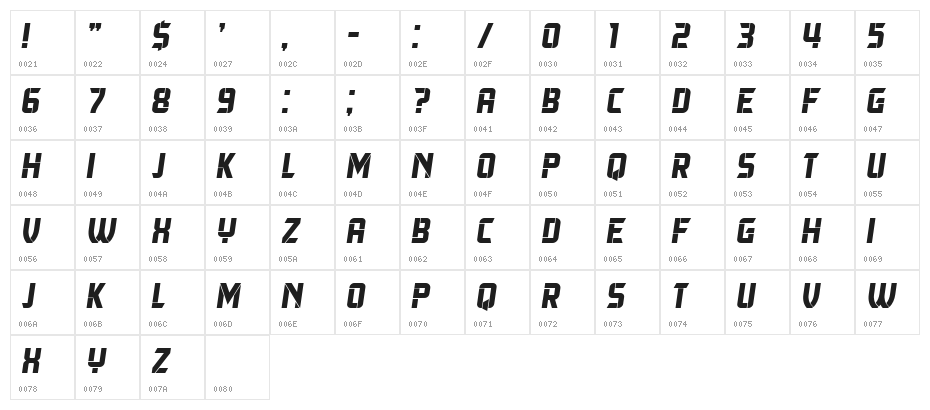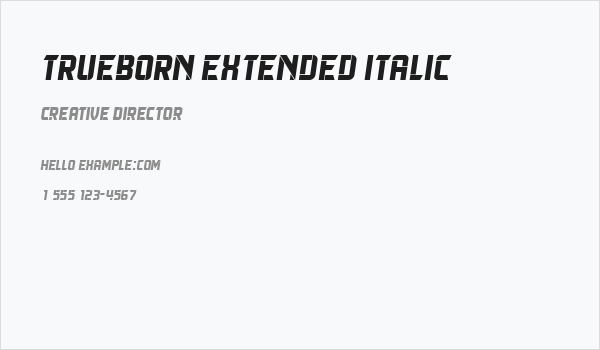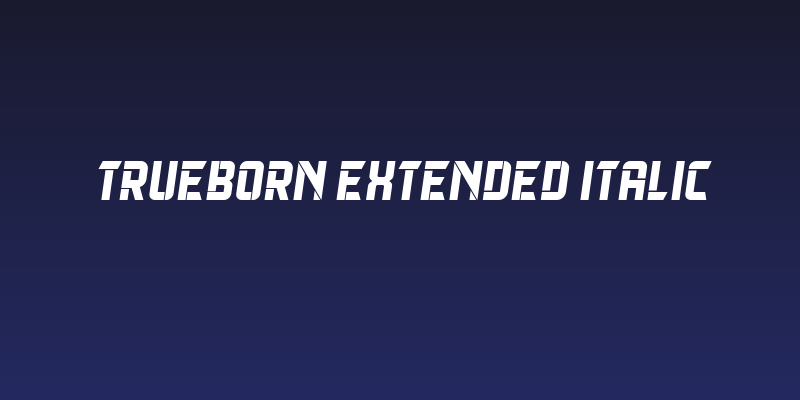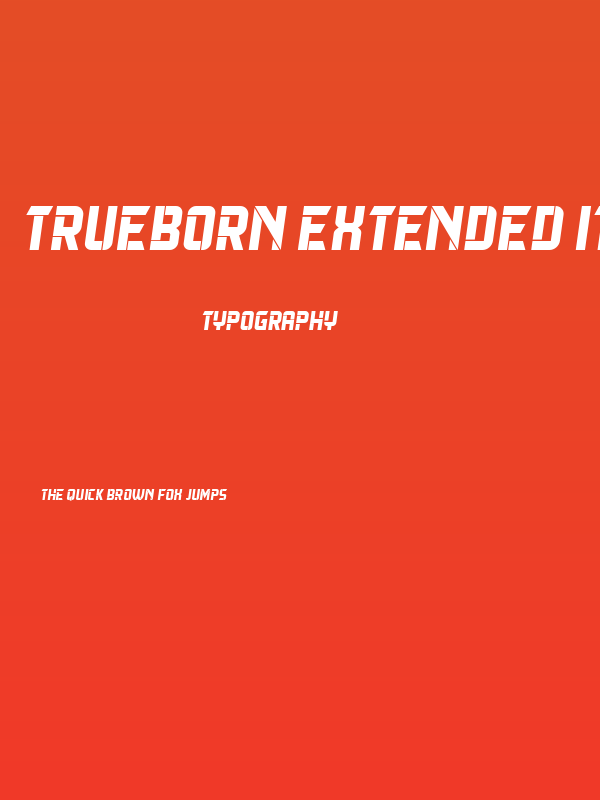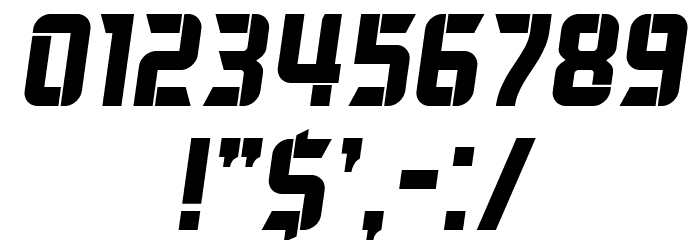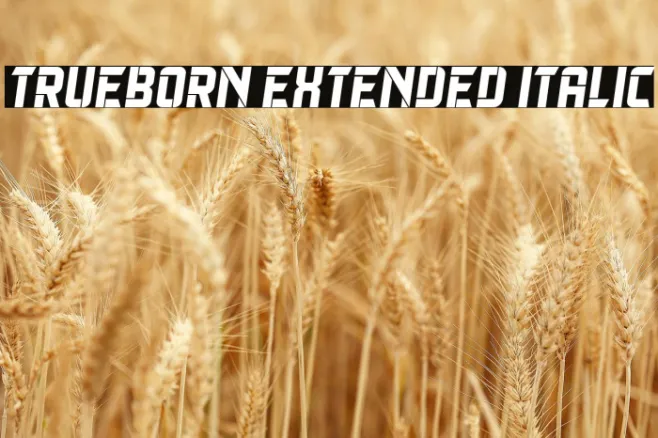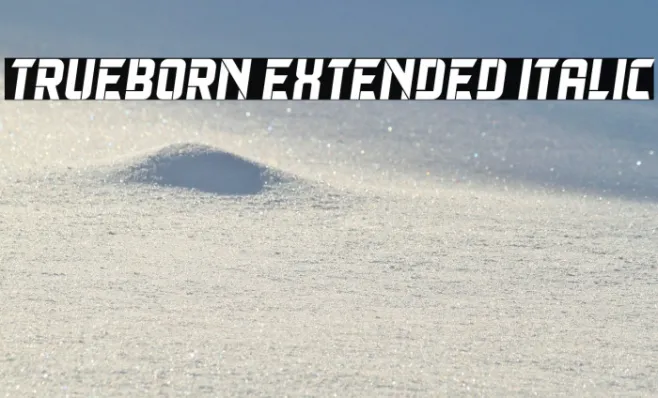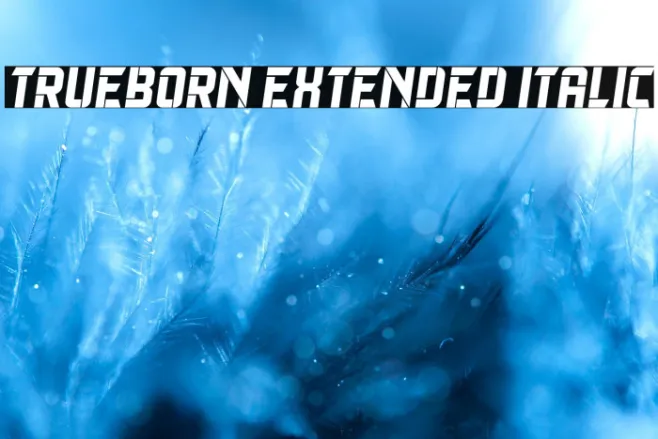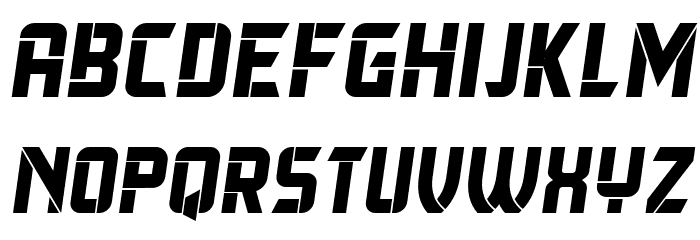
Trueborn Extended Italic Font
Trueborn Extended Italic Description
This font features a bold, italicized style with a futuristic and dynamic appearance. The characters are extended, giving them a wide stance that enhances readability while maintaining a unique aesthetic. The angular cuts and sharp edges contribute to a modern and aggressive look, suitable for attention-grabbing designs. The uppercase and lowercase letters maintain consistent styling, with numerals and special characters following the same design principles. This font is ideal for projects that require a strong, impactful presence.
| Proposed Projects | Perfect for sports branding, tech-related designs, video game titles, and dynamic posters. |